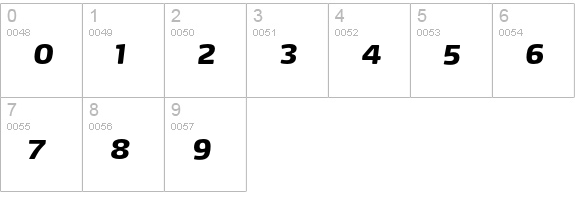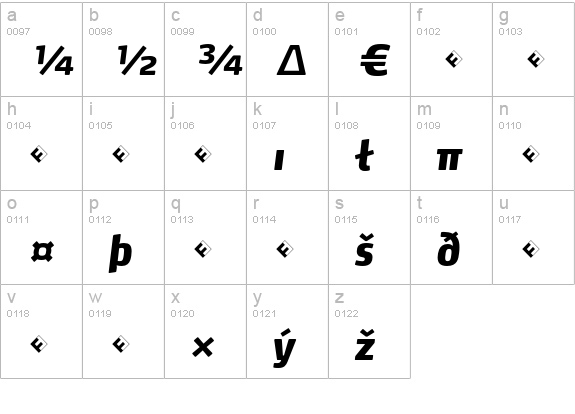
Introducing Max-BlackItalicExpert font, a sleek and sophisticated typeface designed for those seeking a bold and modern look in their designs. This font exudes a sense of strength and elegance, making it the perfect choice for headlines, titles, logos, and more. Max-BlackItalicExpert font features a unique italic style with a touch of expertly crafted details that set it apart from the rest. Its sharp edges and clean lines give your text a professional and refined appearance, making a lasting impression on your audience. Whether you're working on a branding project, advertising campaign, or any other creative endeavor, Max-BlackItalicExpert font will elevate your design to new heights. Its versatility and readability make it suitable for a wide range of applications, ensuring that your message comes across loud and clear. Best of all, Max-BlackItalicExpert font is available for free download at FontsMarket.com, allowing you to access this premium typeface without breaking the bank. Don't miss out on the opportunity to enhance your designs with this stylish and impactful font today!